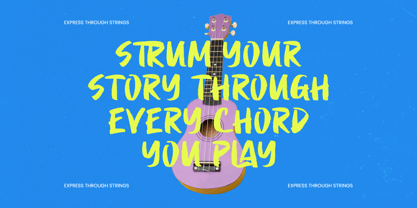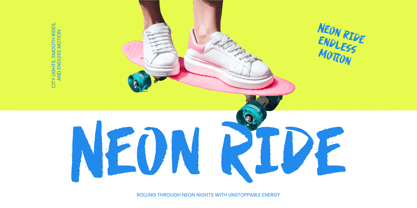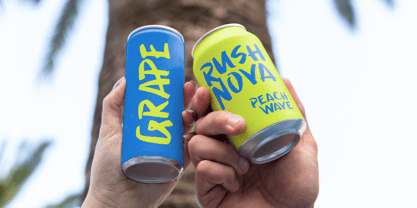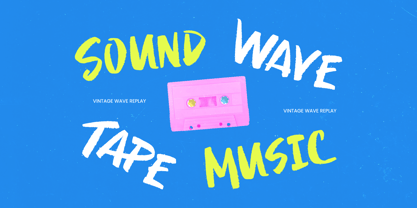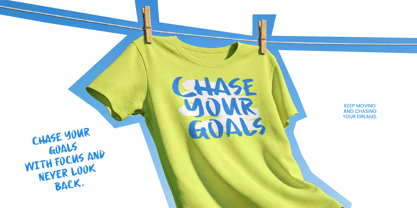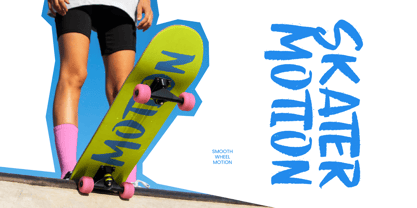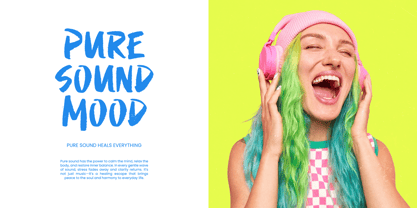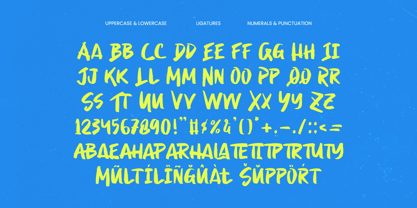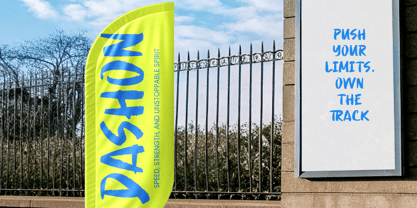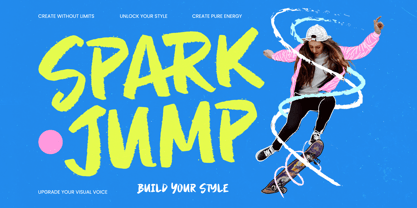
Spark Jump
by Letterena Studios
The Spark Jump Font Family was designed by Heru Utama Putra and published by Letterena Studios. Spark Jump contains 2 styles and family package options. More about this family
Spark Jump - Display Brush Font
Ignite your creative projects with the raw energy of Spark Jump - Display Brush Font, a powerhouse typeface designed to demand attention. This bold brush font captures an urban aesthetic with its dynamic strokes and handcrafted texture, offering a perfect blend of rebellion and commercial appeal. It is engineered for designers who need their headlines to resonate with a youthful, high-impact audience while maintaining a professional finish.
Global reach is effortless with this expansive and technically superior typeface. With its extensive multilingual support, Spark Jump - Display Brush Font adapts seamlessly across global markets, making it incredibly versatile for international projects and diverse branding campaigns. Whether you are targeting local niche markets or a worldwide demographic, its consistent legibility and inclusive character set ensure your message remains powerful and clear in any language.